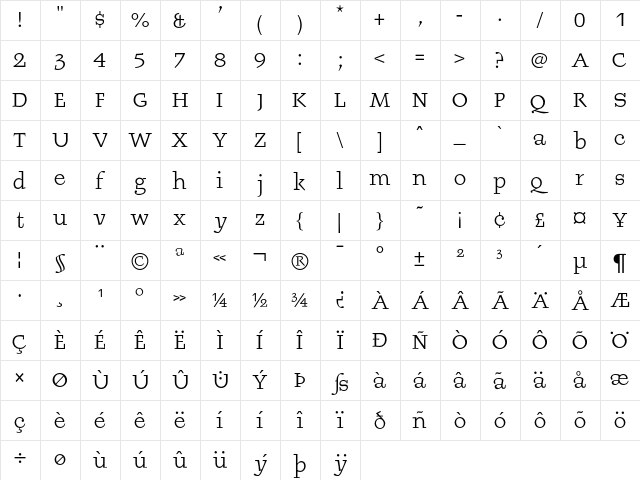
BurgstaedtAntiqua LT Std Rg Regular
| Foundry | Linotype Library GmbH |
| Designer | Richard Yeend |
Design Context for BurgstaedtAntiqua LT Std Rg Typeface
BurgstaedtAntiqua LT Std Rg is a composed and adaptable typeface that performs quietly and consistently across a wide range of design contexts. Its slender proportions lend an understated elegance to any composition.